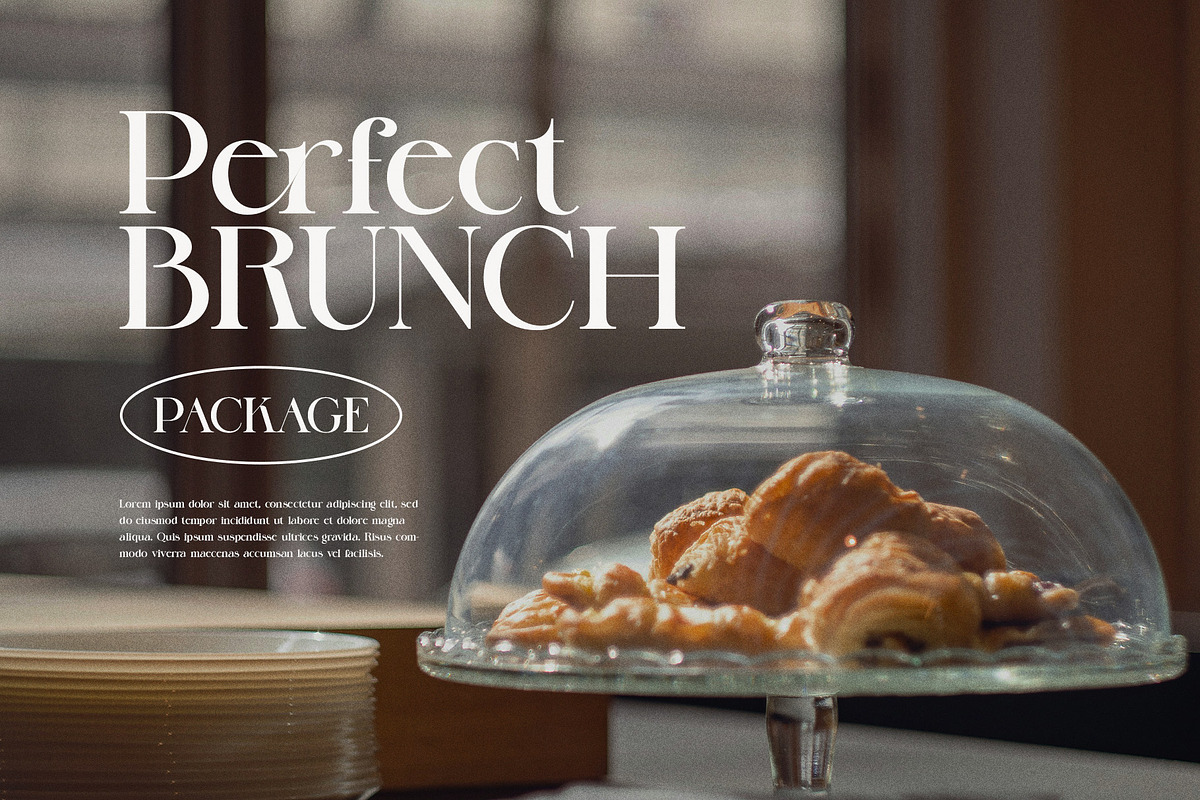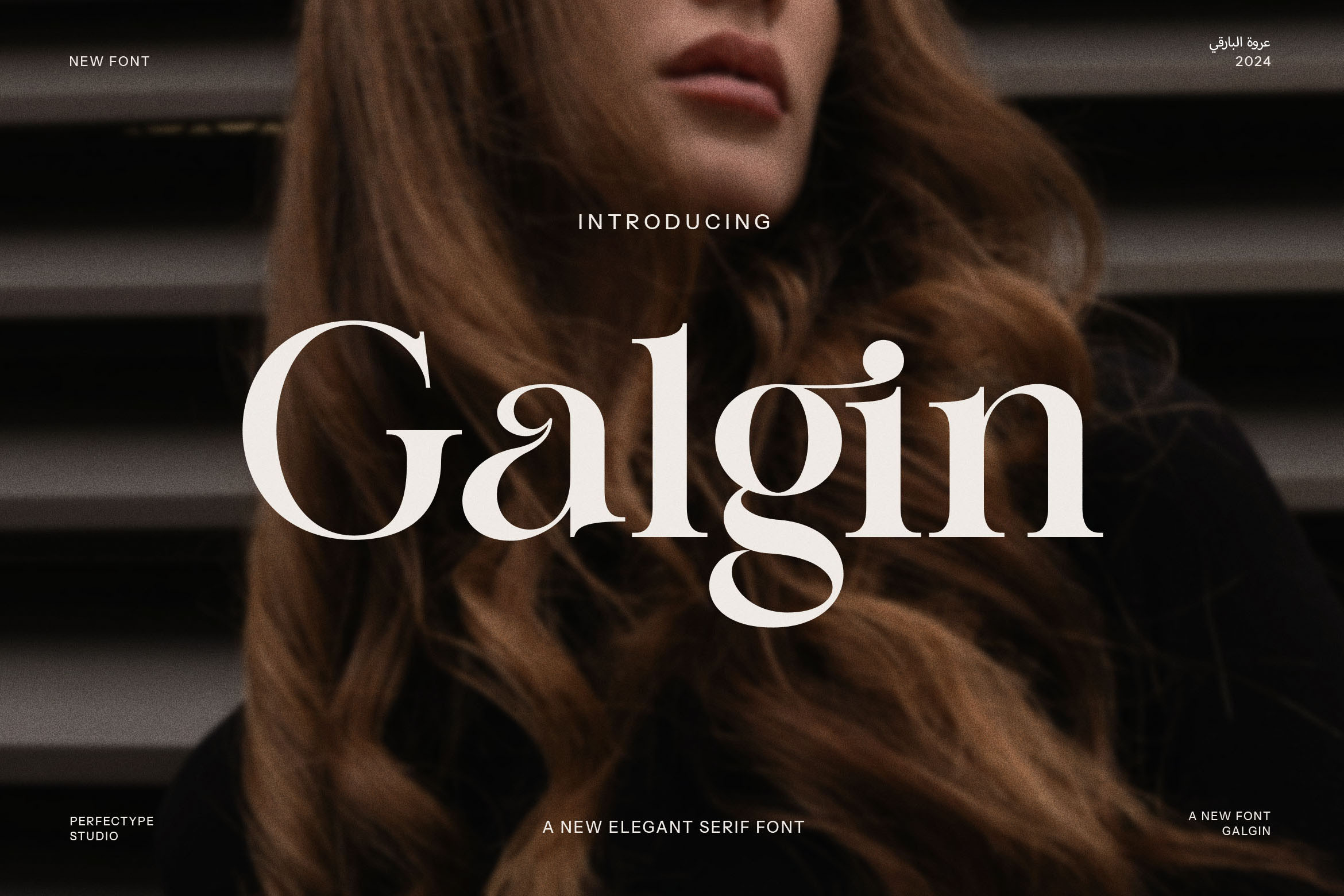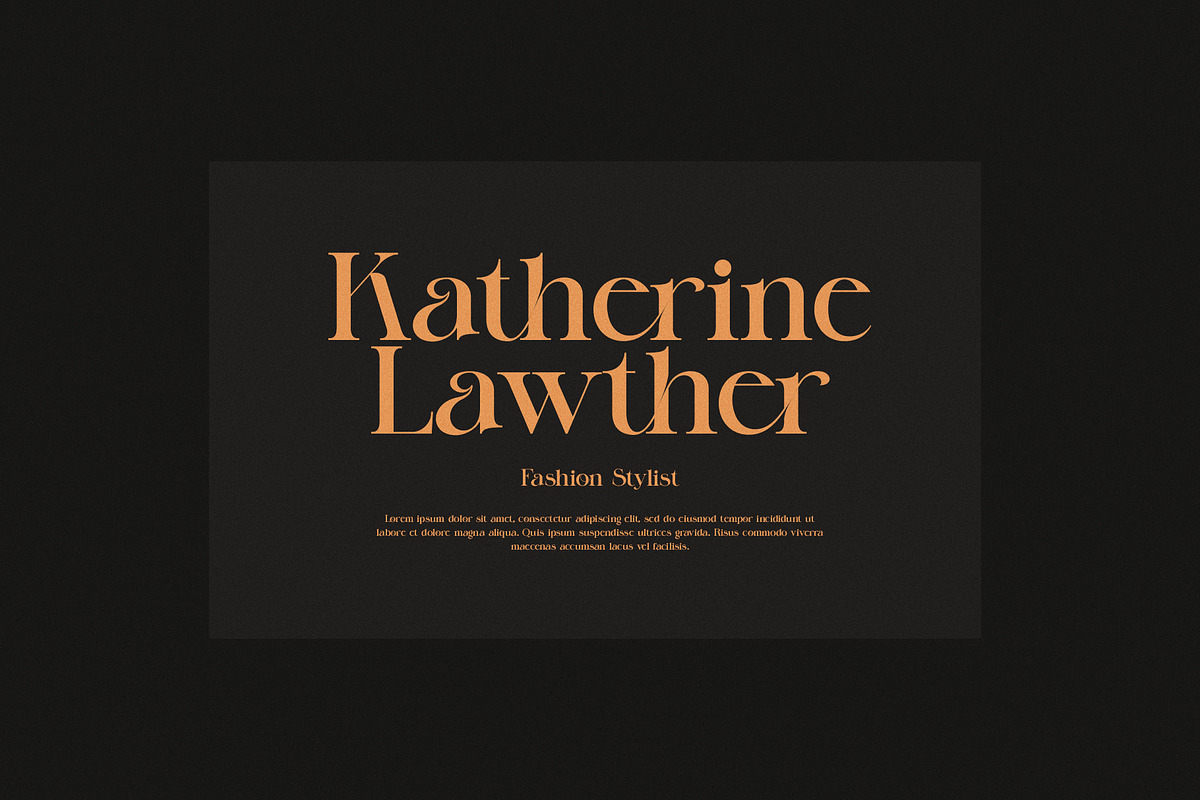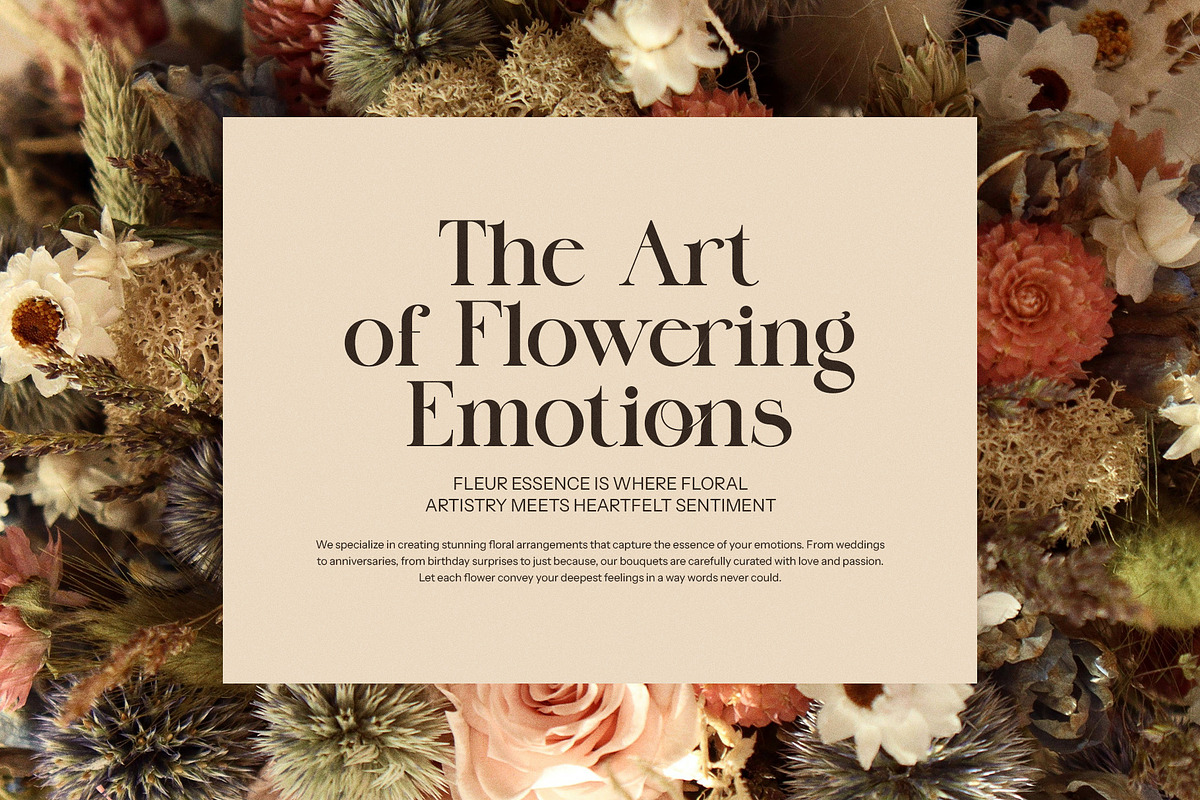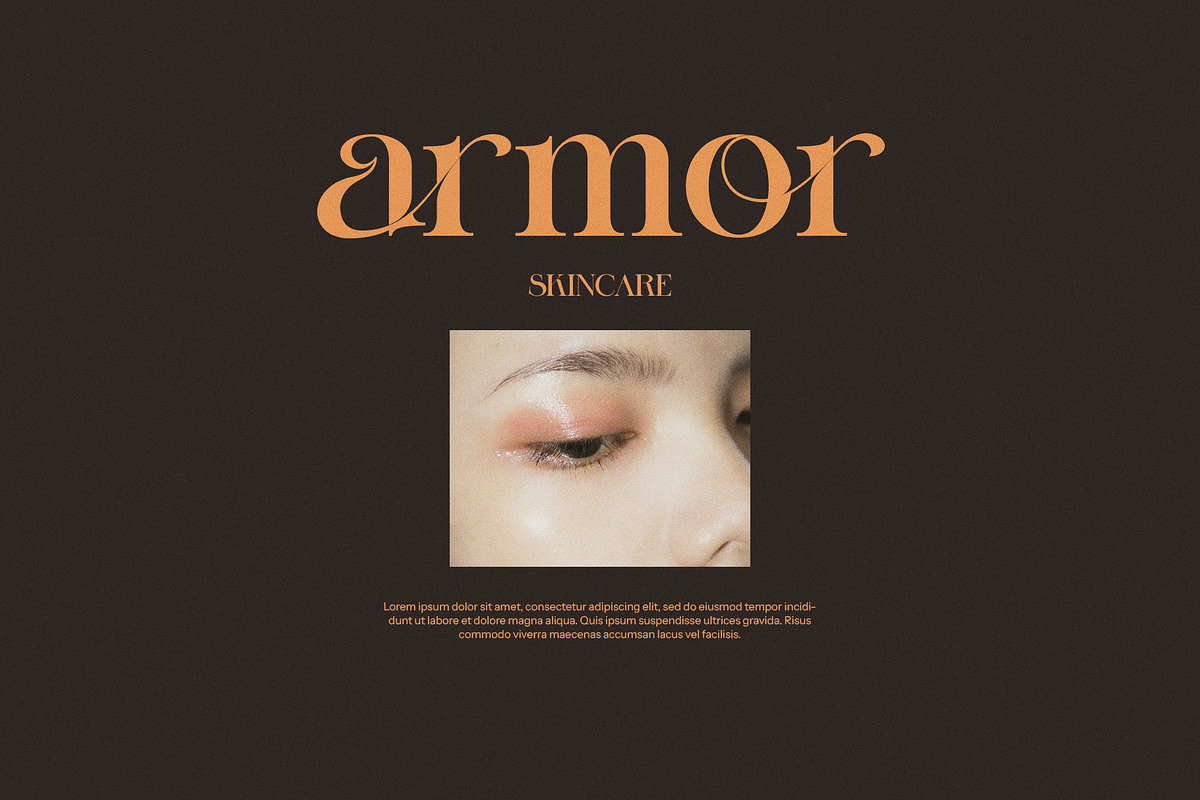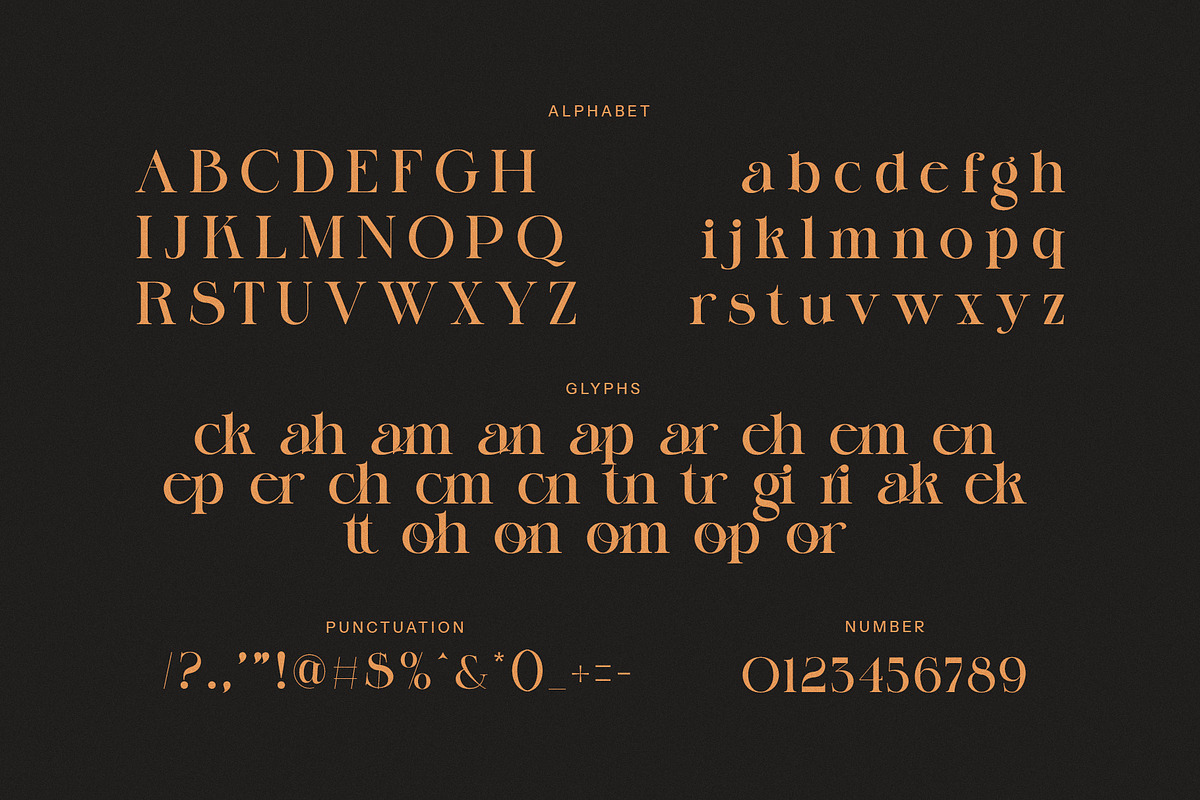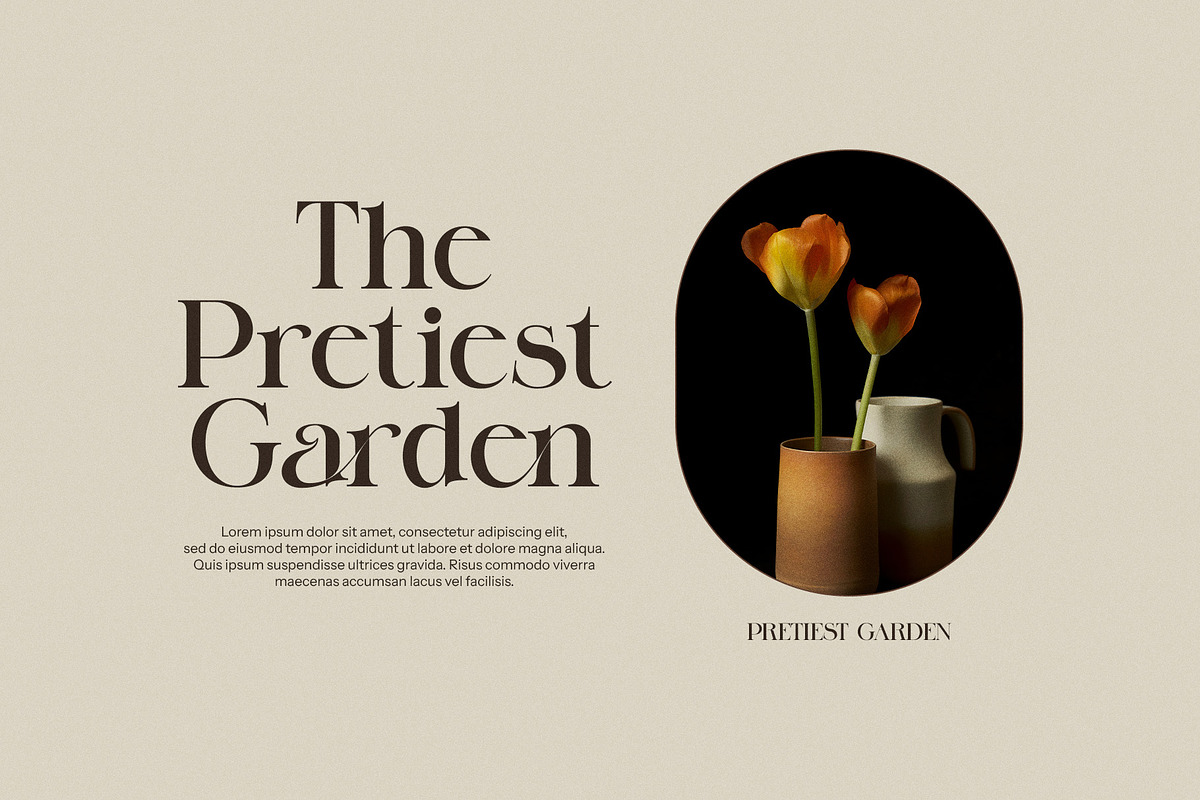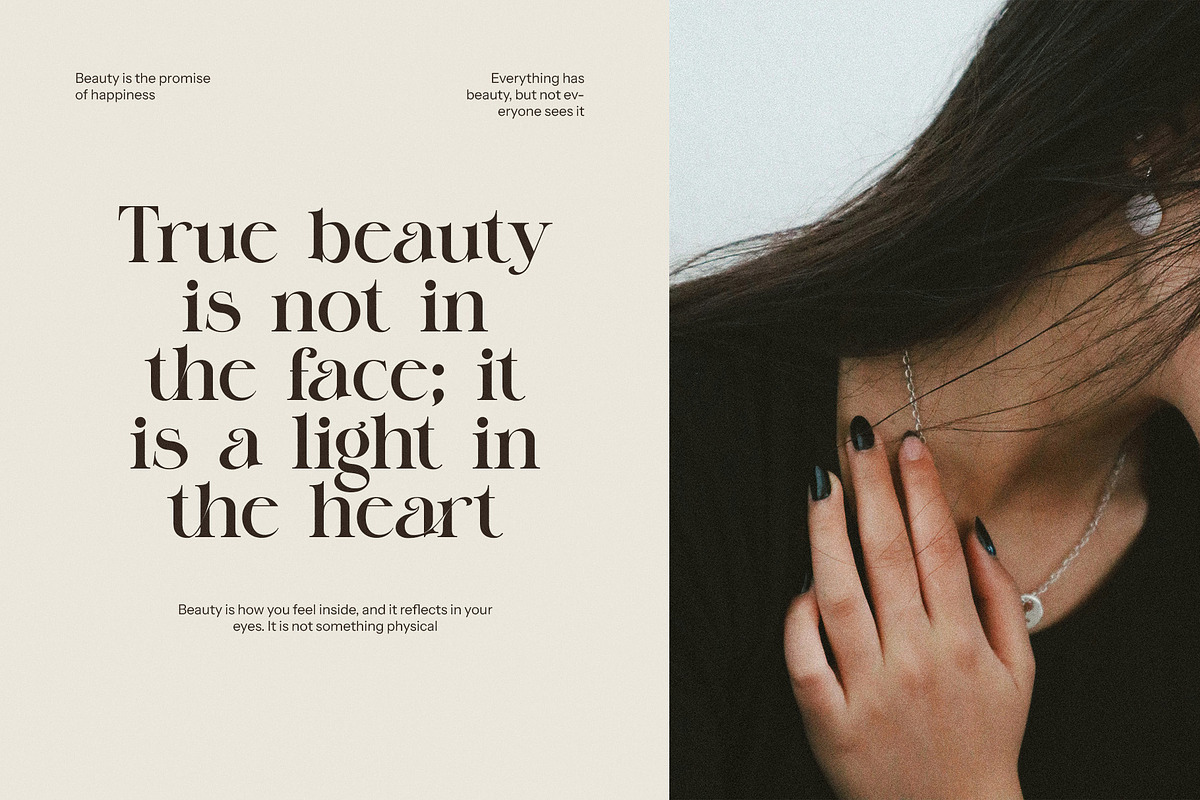
Galgin Elegant Serif Font
Galgin Elegant Serif Font is a sophisticated and stylish serif typeface designed to bring a touch of class and refinement to any project. With its unique and graceful letterforms, this font captures the essence of elegance, making it perfect for high-end branding, luxury logos, and upscale designs. The refined curves and sharp serifs create a harmonious balance between tradition and modernity, making it suitable for a wide range of uses including websites, magazines, advertisements, and product packaging.
This versatile font is ideal for fashion brands, boutique businesses, and other luxury-focused industries. It stands out in both large and small sizes, making it suitable for headlines, body text, and logos alike. Whether you’re designing a high-end product label, a stylish website layout, or an elegant magazine spread, Galgin Elegant Serif Font brings a sense of professionalism and charm to your creative work.
The font's timeless appeal also extends to food packaging, fine arts, and more, allowing it to seamlessly complement both contemporary and vintage design aesthetics. Its distinctive letterforms are designed to make a lasting impression while maintaining readability and elegance. Perfect for any project that demands sophistication and luxury, Galgin Elegant Serif Font is a must-have tool for designers seeking to elevate their creations with a touch of refinement.